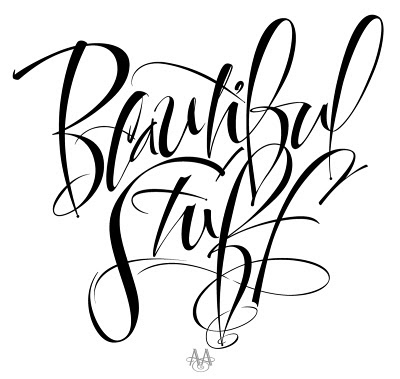
Beautiful Stuff is a lettering piece for the opening image of an upcoming article featuring my work. Lot of overlays with translucent paper to figure out the flow and compostion. Additional changes happened while lettering in Illustrator.
ReplyDeleteI used a PITT artist marker for the preliminary sketches. I melted the tip of the marker to make the point stiff and a bit dry. When I had the lettering flow I needed I scanned the sketch, imported it to Adobe Illustrator and drew the lettering for final.